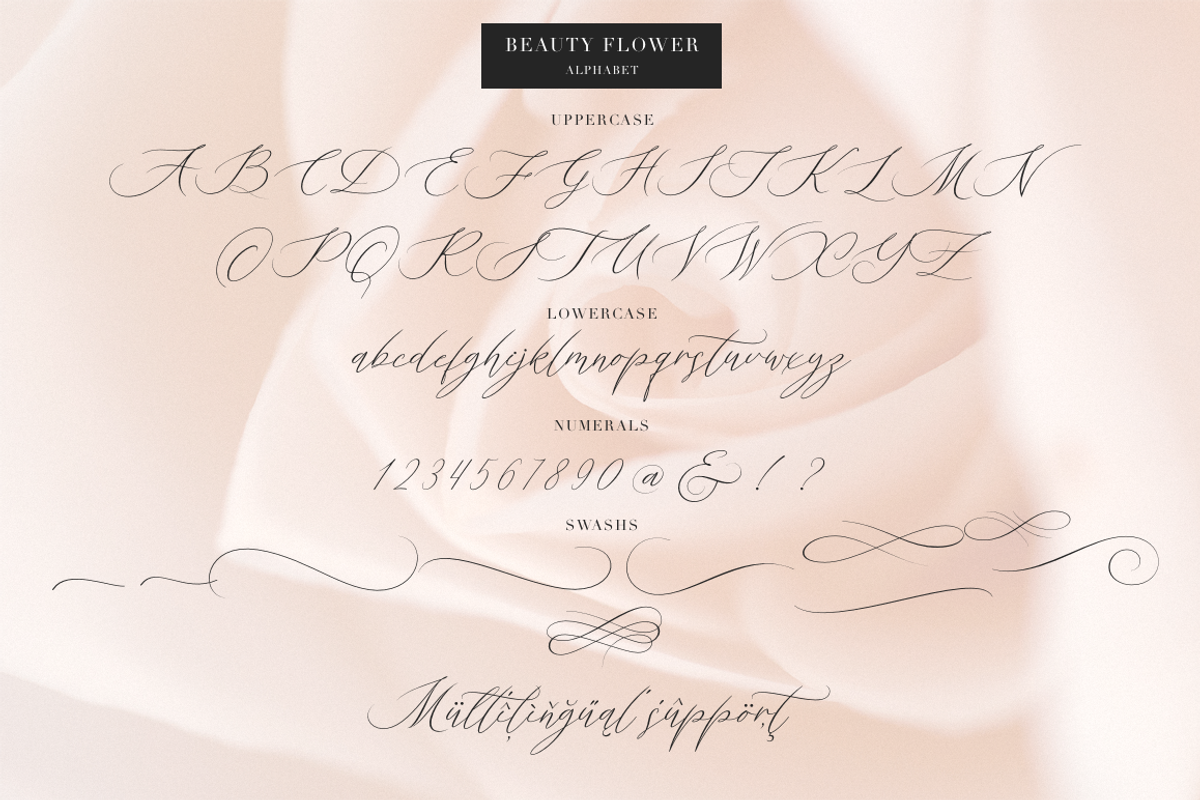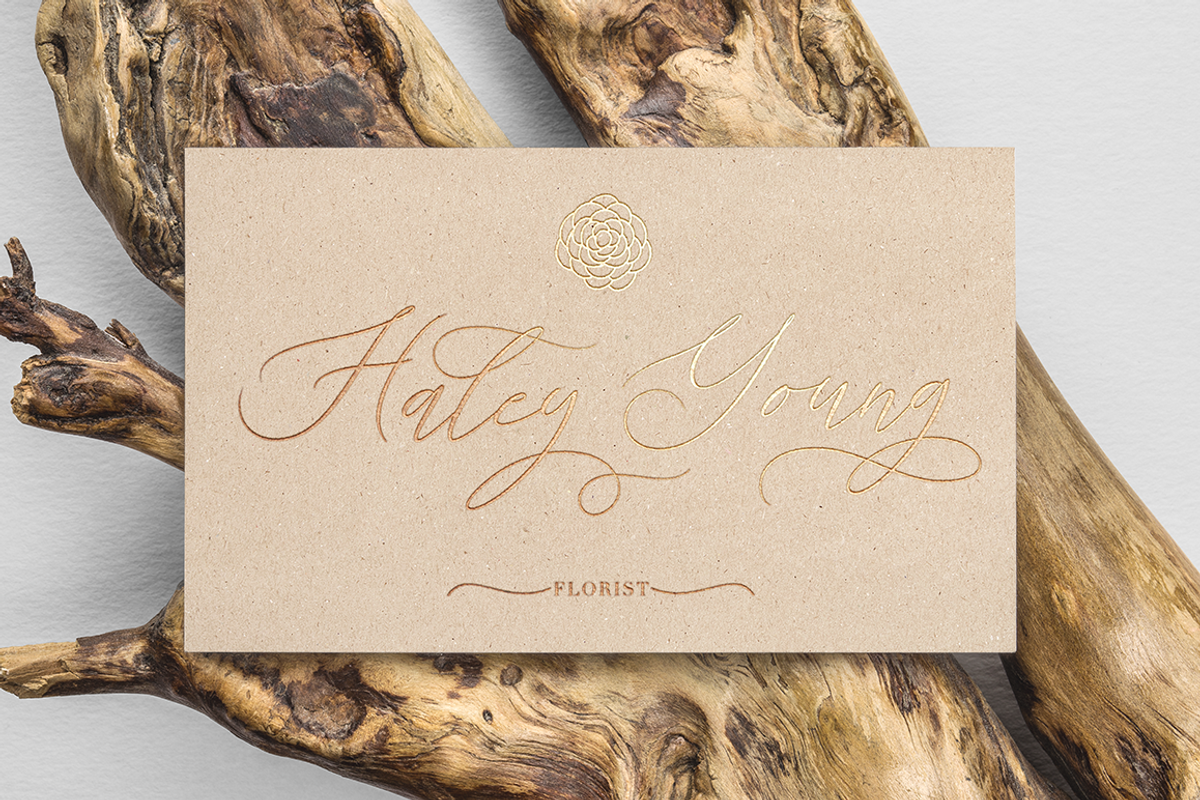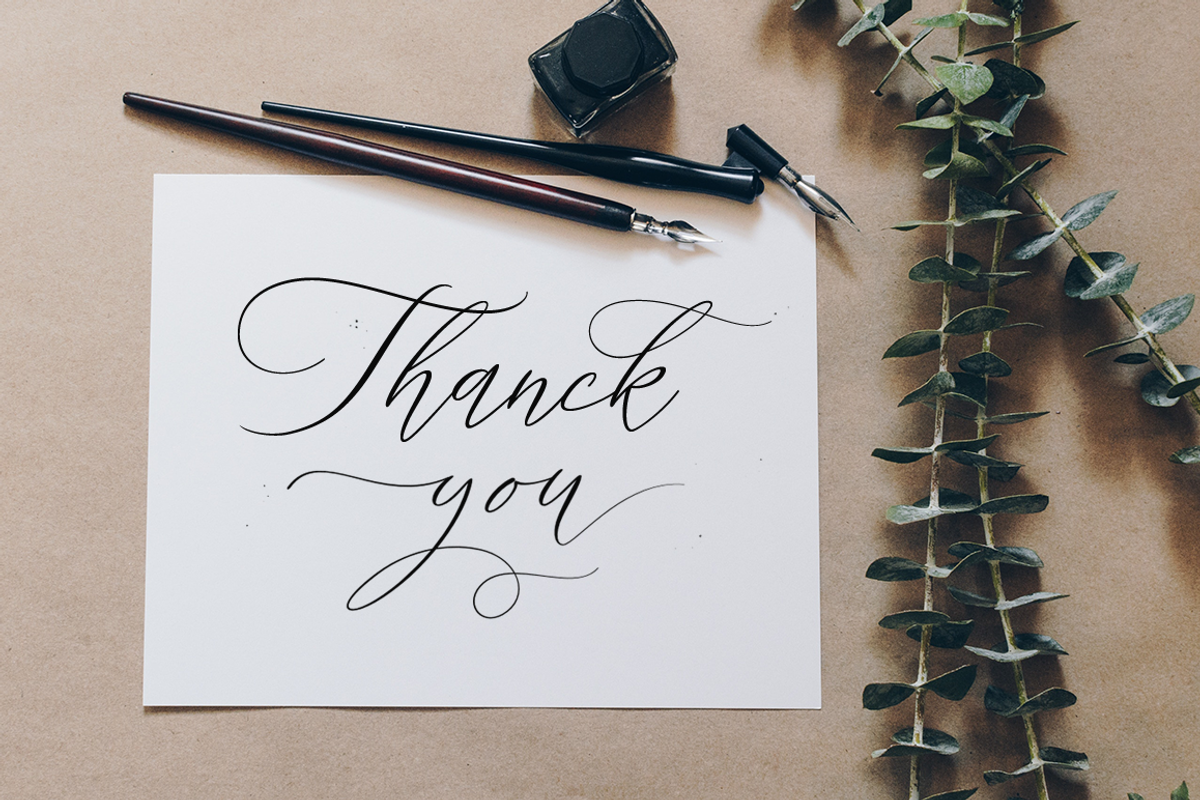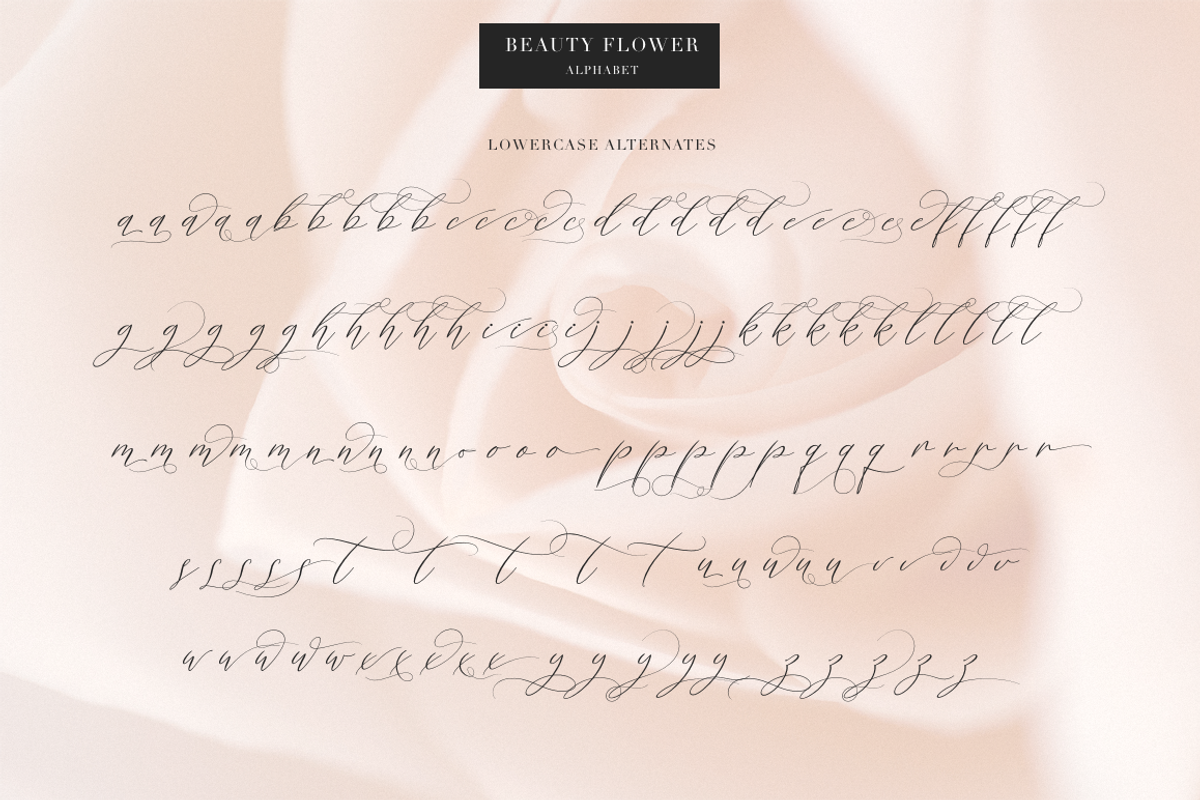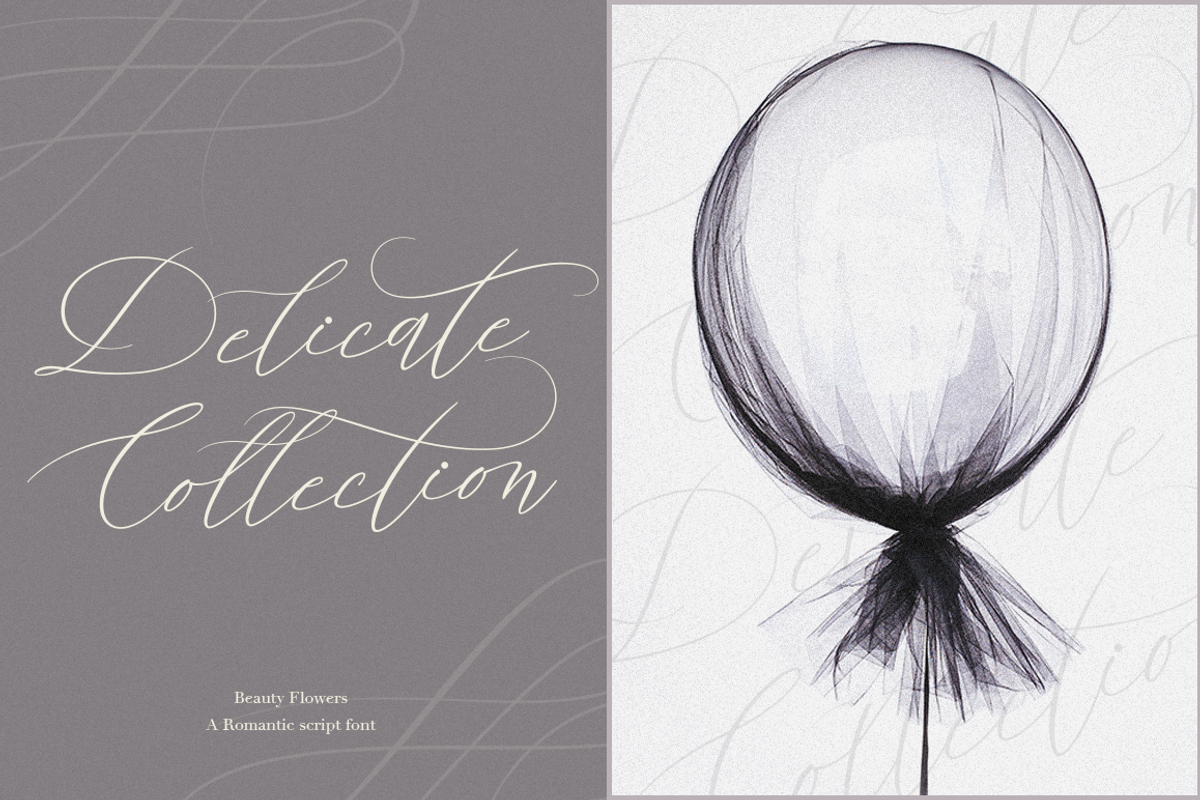
Beauty Flowers
Beauty Flowers - A romantic calligraphy script font
Inspired by modern calligraphy, this font will delight you with its romantic charm, elegance, lightness and a variety of alternative substitutes that will help you make your design project unique. also in this font there are swashes that will perfectly complement your design.
Following international symbols support: ÀÁÂÃÄÅĄÇĆÈÉÊËĘÌÍÎÏÐÑŃŁÒÓÔÕÖØÙÚÛÜŚŠŸÝŹŻŽßàáâãäåçèéêëìíîïðñòóôõöøùúûüýÿąćęłńśšźżž